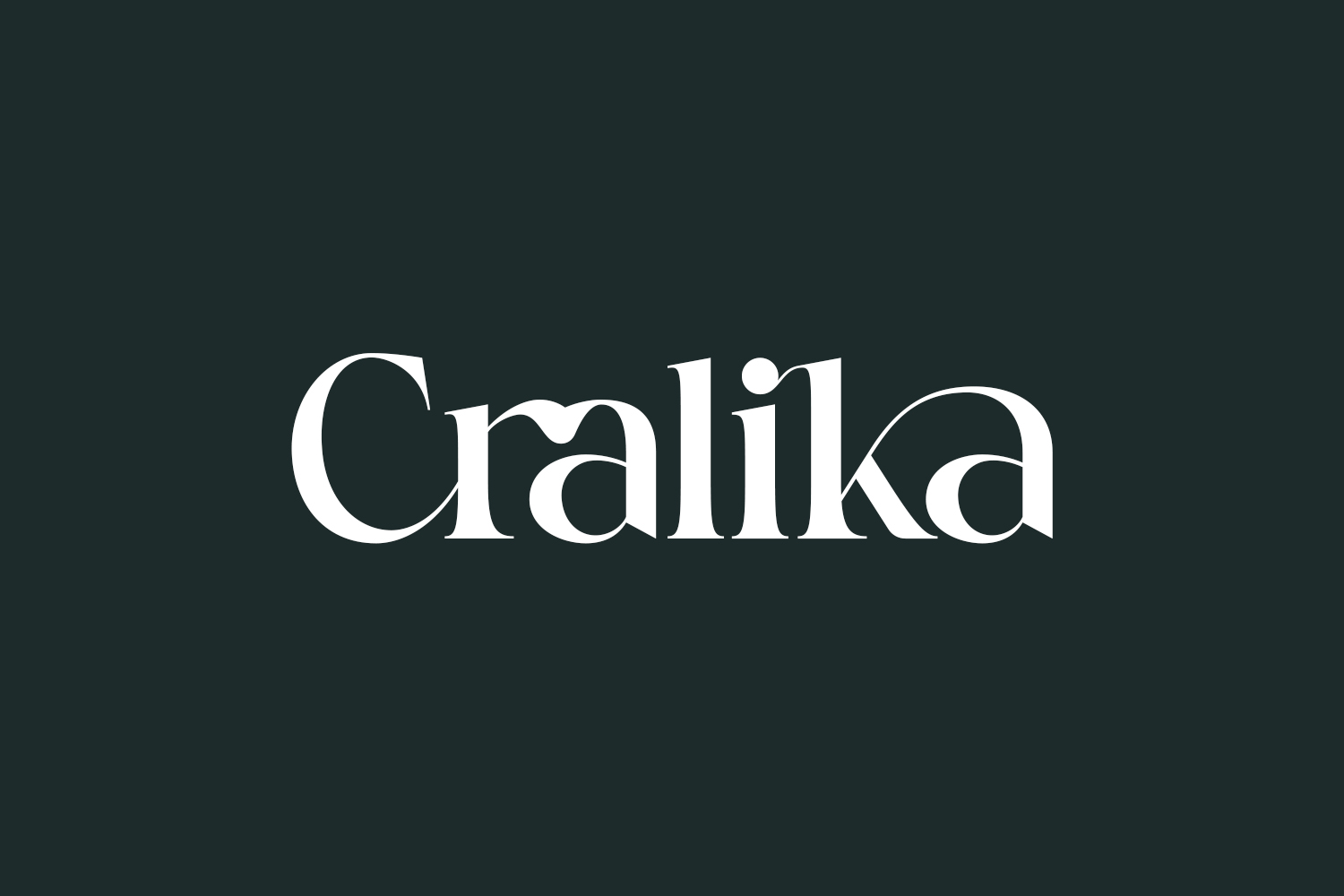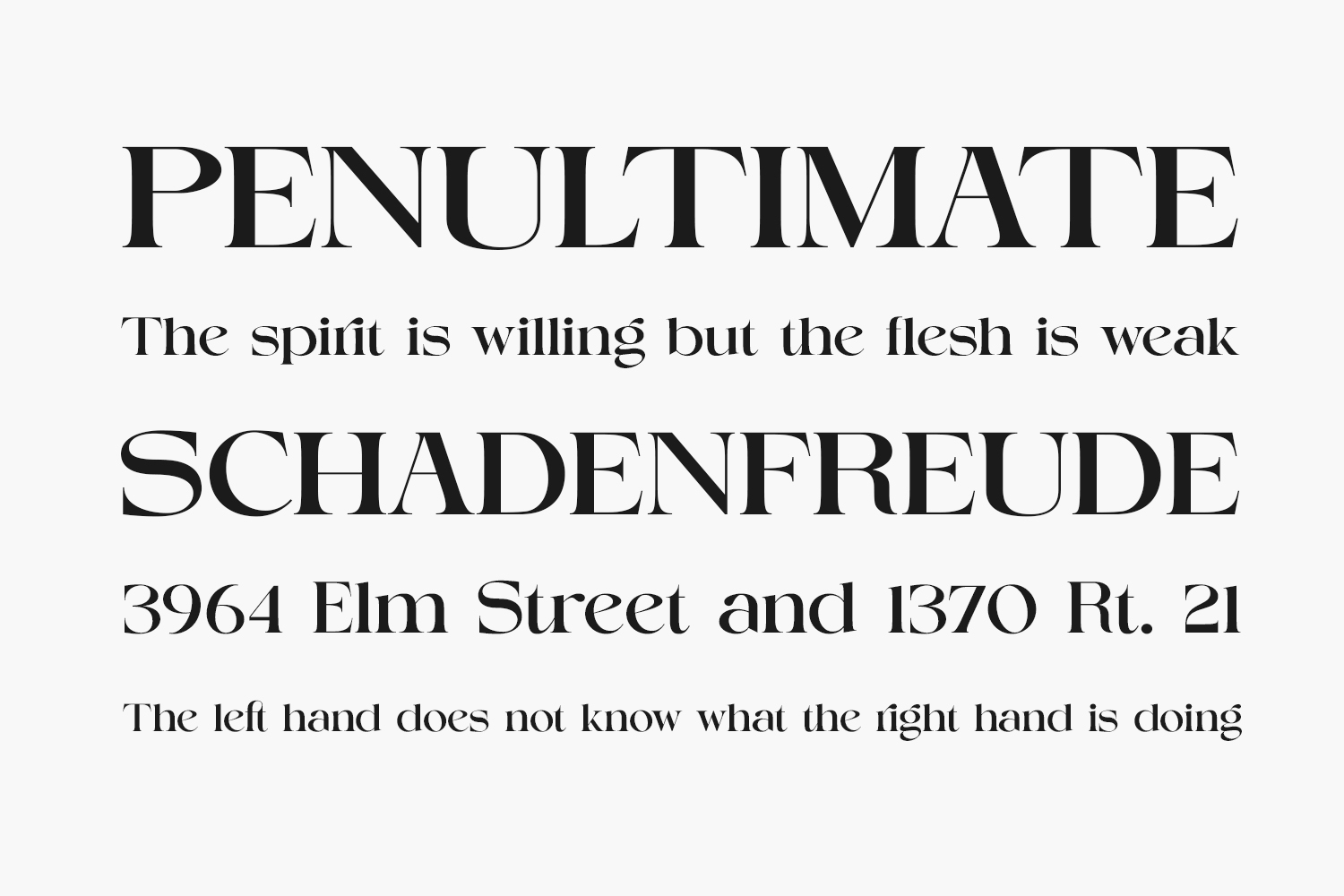
Introducing our latest font creation, Cralika Free Font Family – a serif family font featuring two distinct styles: regular and italic. Immerse yourself in the fashion-forward and refined aesthetics of Cralika, characterized by unique curves and an elegant flow. Elevate your projects with a touch of modernity, as Cralika seamlessly lends a contemporary feel to your designs.
This versatile font is an ideal choice for a wide range of applications, including branding projects, logos, wedding designs, social media posts, advertisements, product packaging, product designs, labels, photography, watermarks, invitations, stationery, and more. Explore the endless possibilities that Cralika brings to enhance the visual appeal of any project. Cralika Free Font Family was designed by ToniStudio and is free for personal use only. Please purchase the full version for commercial use.